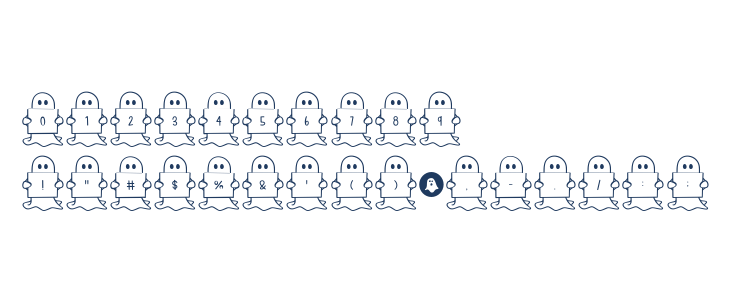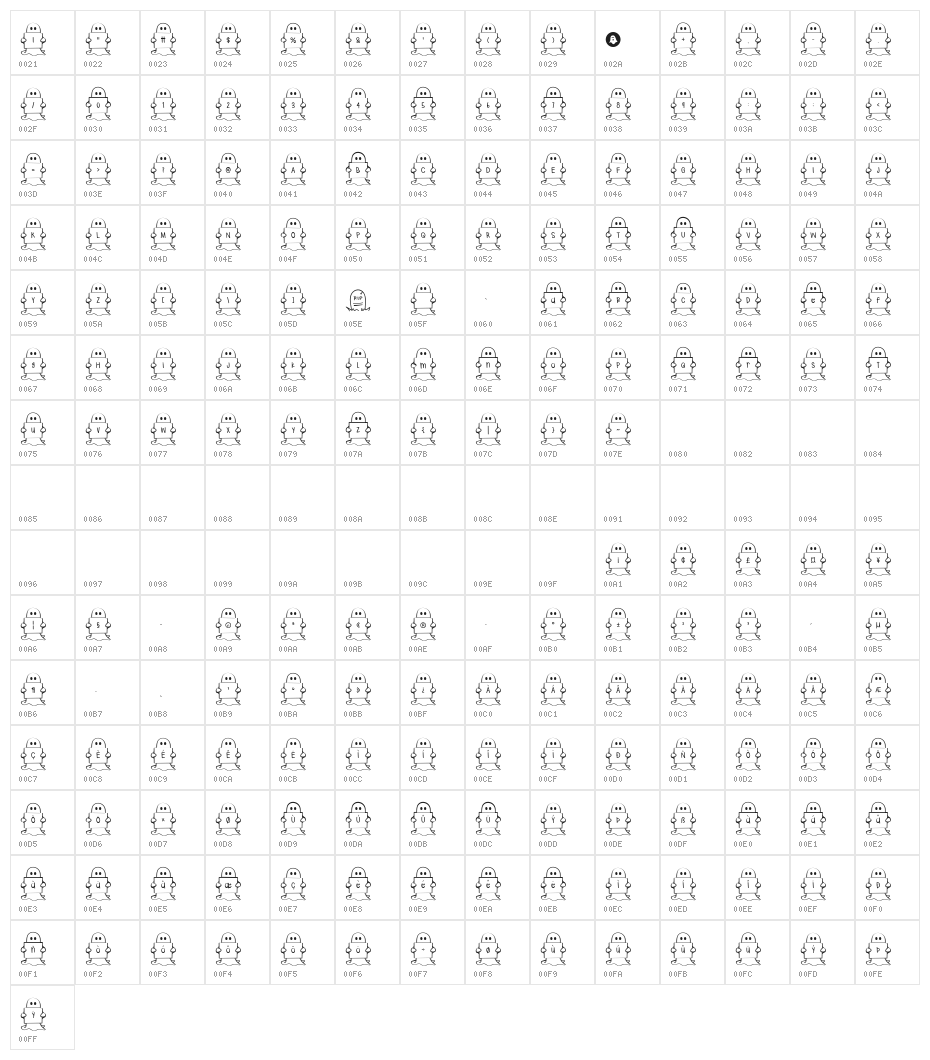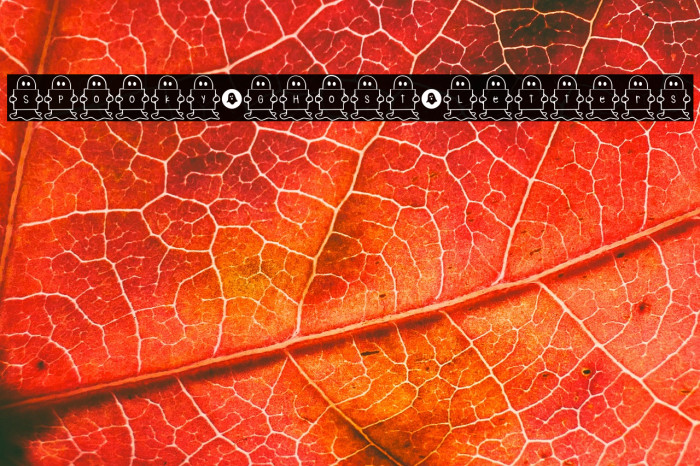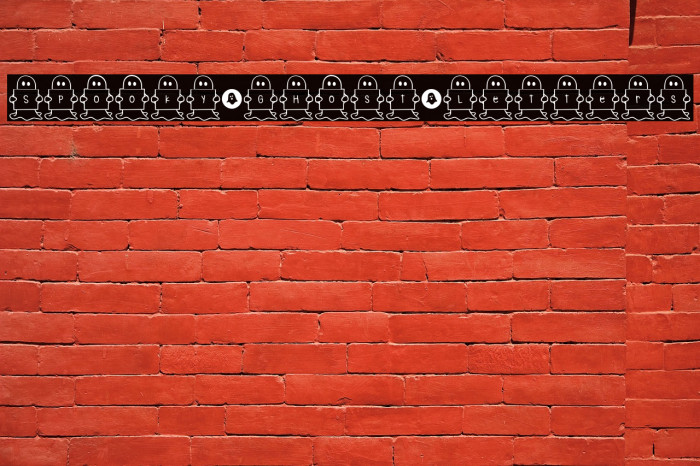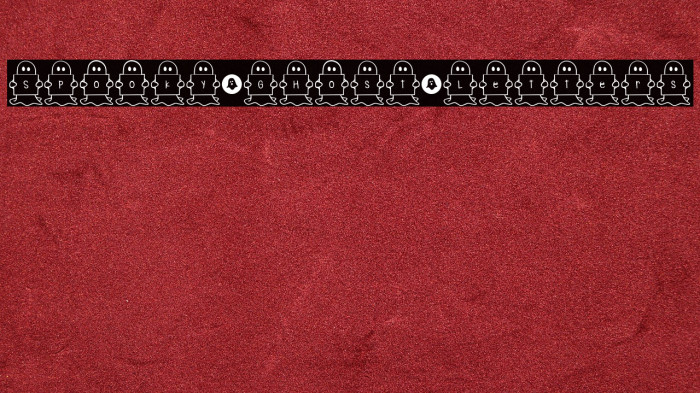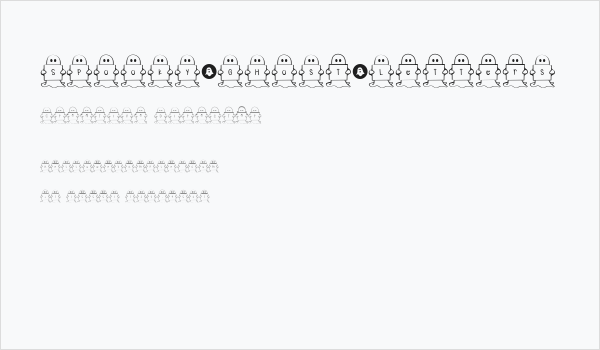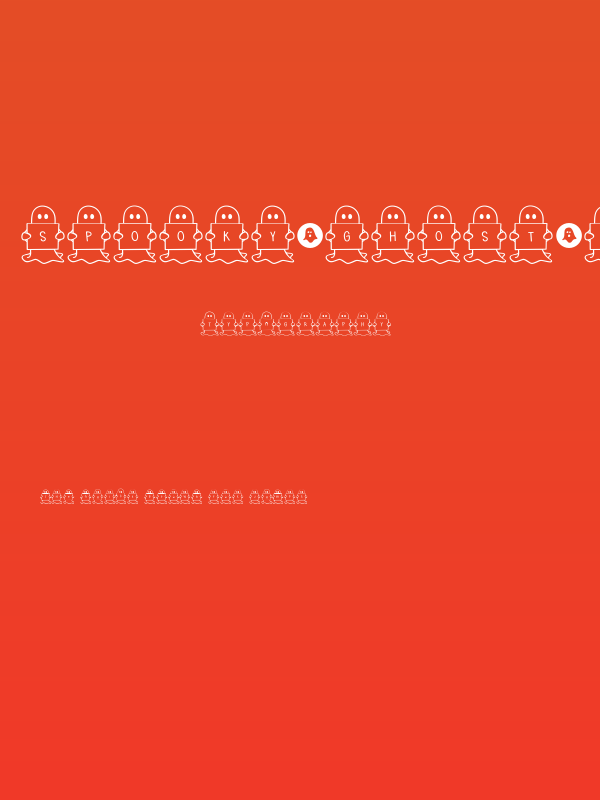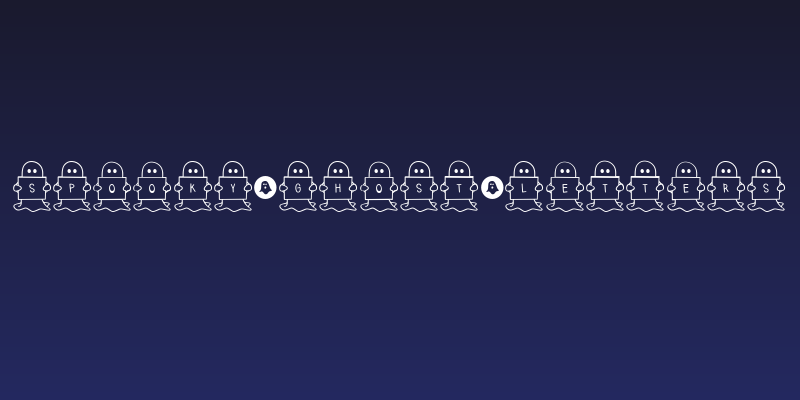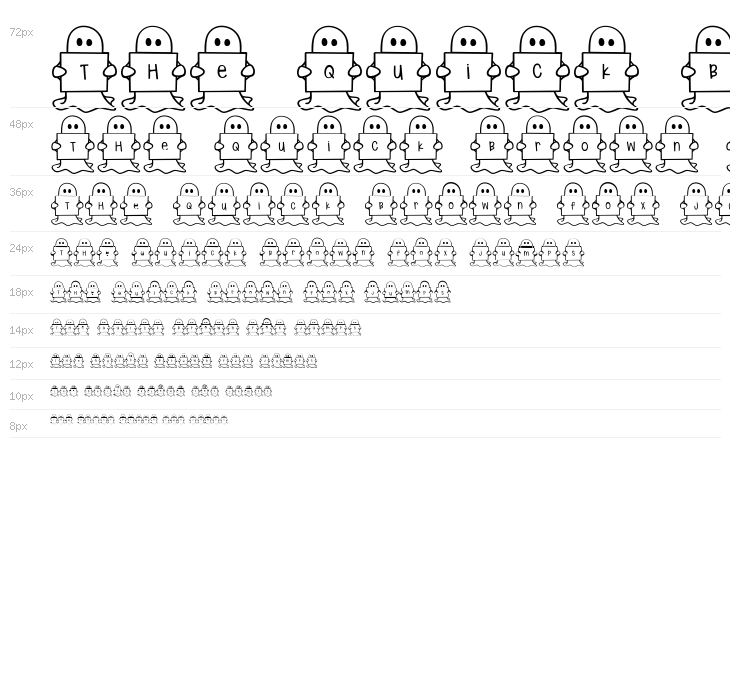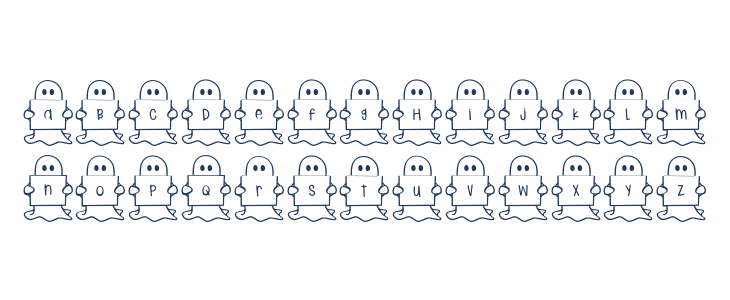
Spooky*Ghost*Letters Font
Spooky*Ghost*Letters Description
This playful and whimsical font features each character encased within a cute ghostly figure, giving it a unique and charming appearance. The letters are bold and clear, making them easily readable despite the decorative ghost theme. The font includes both uppercase and lowercase letters, numbers, and a selection of special characters, all maintaining the consistent ghostly design. The rounded edges and friendly ghost shapes make it ideal for Halloween-themed projects or any design that requires a fun and spooky touch. The overall style is decorative and playful, perfect for capturing attention and adding a touch of whimsy to any project.
| Proposed Projects | Ideal for Halloween invitations, children's party decorations, themed posters, and playful branding. |